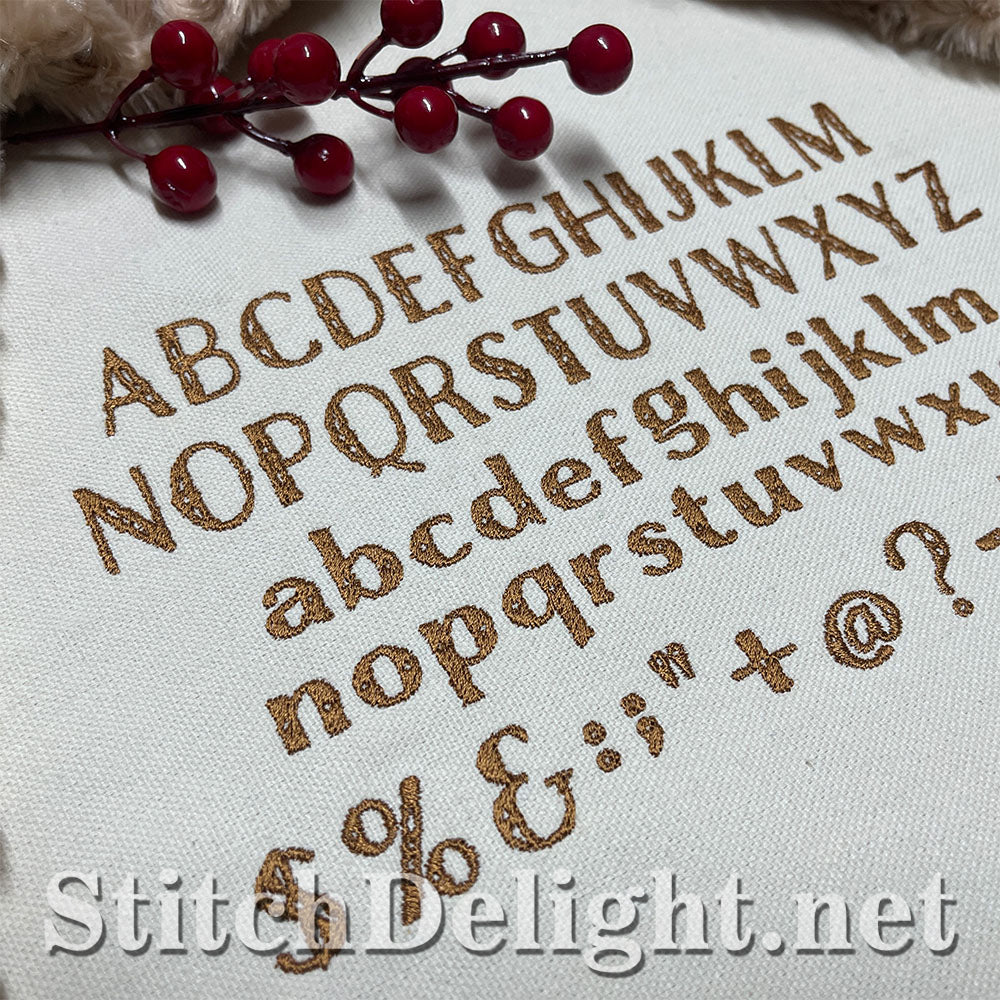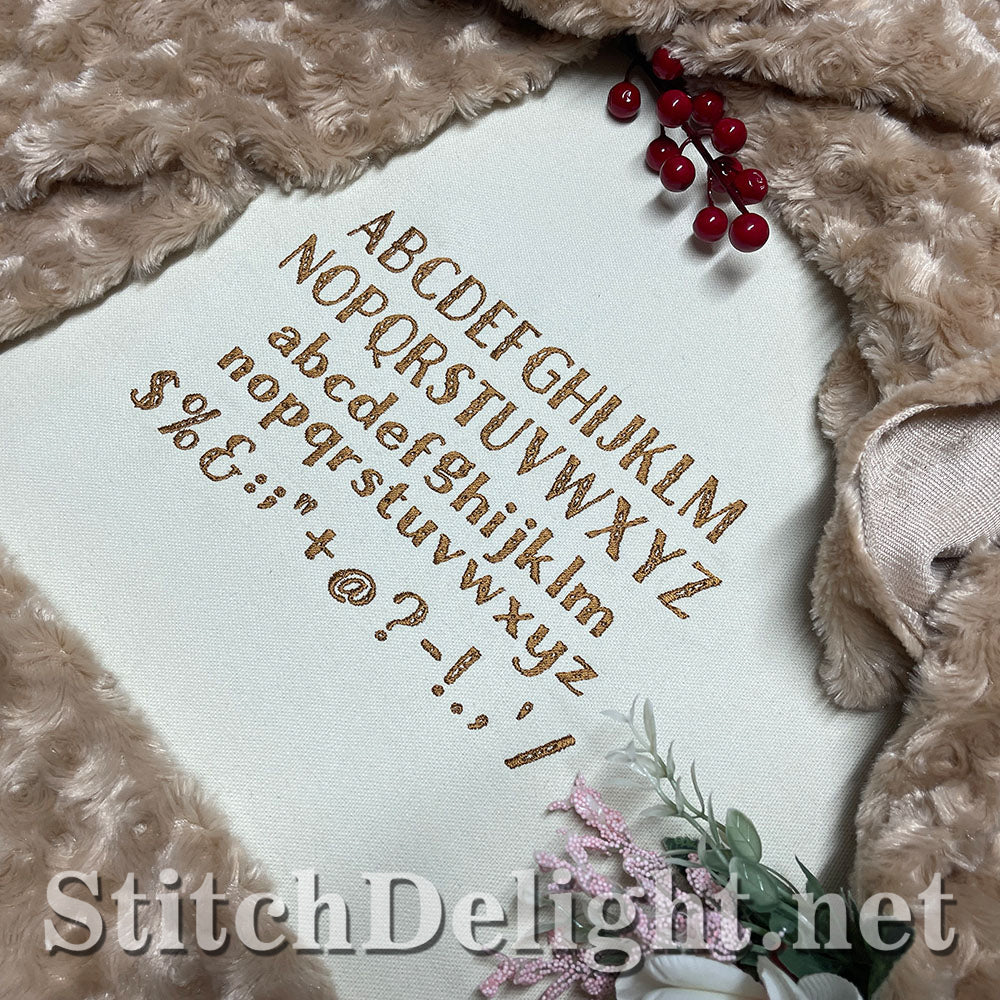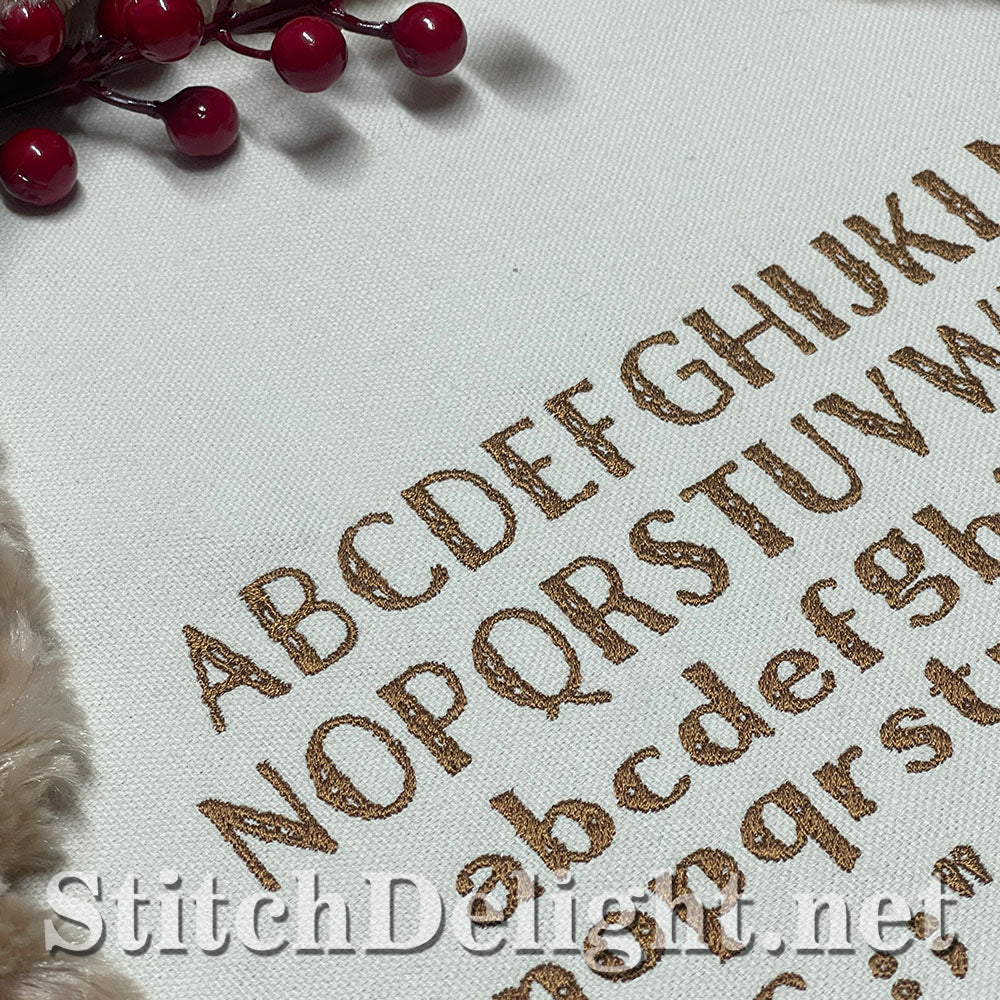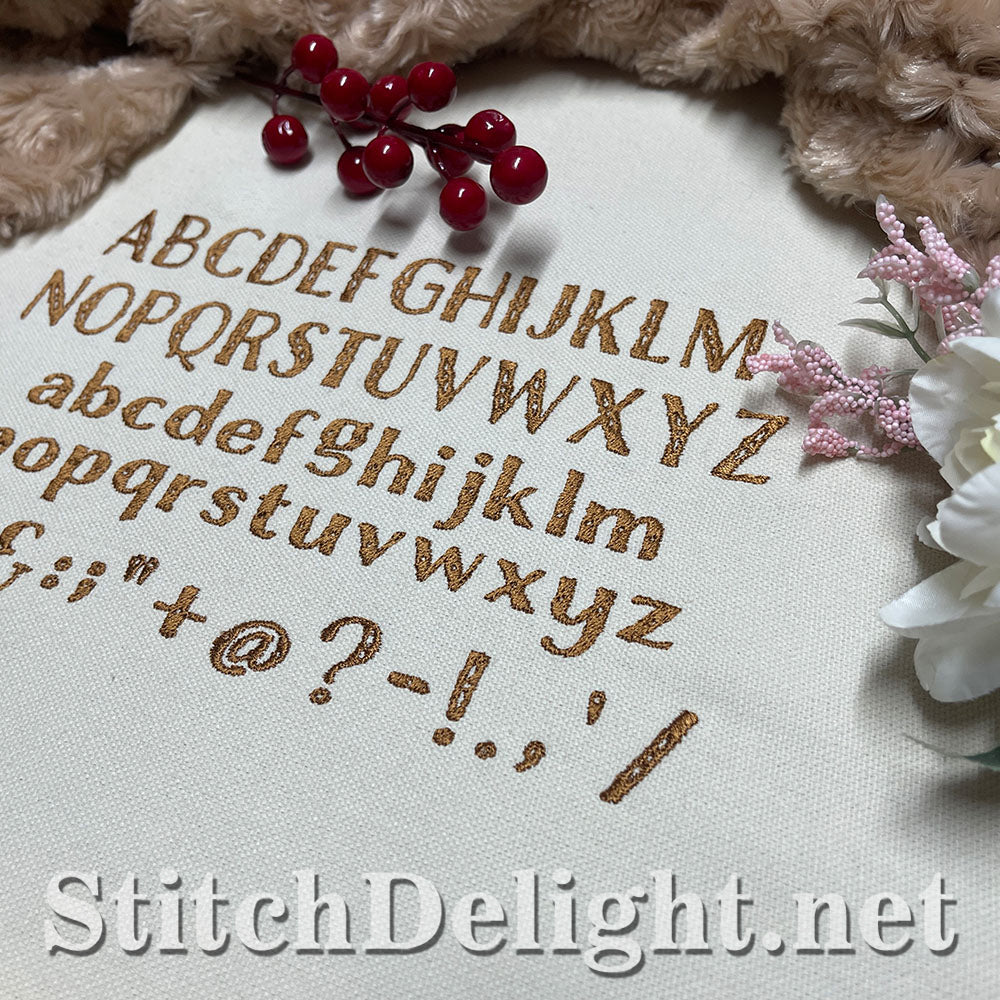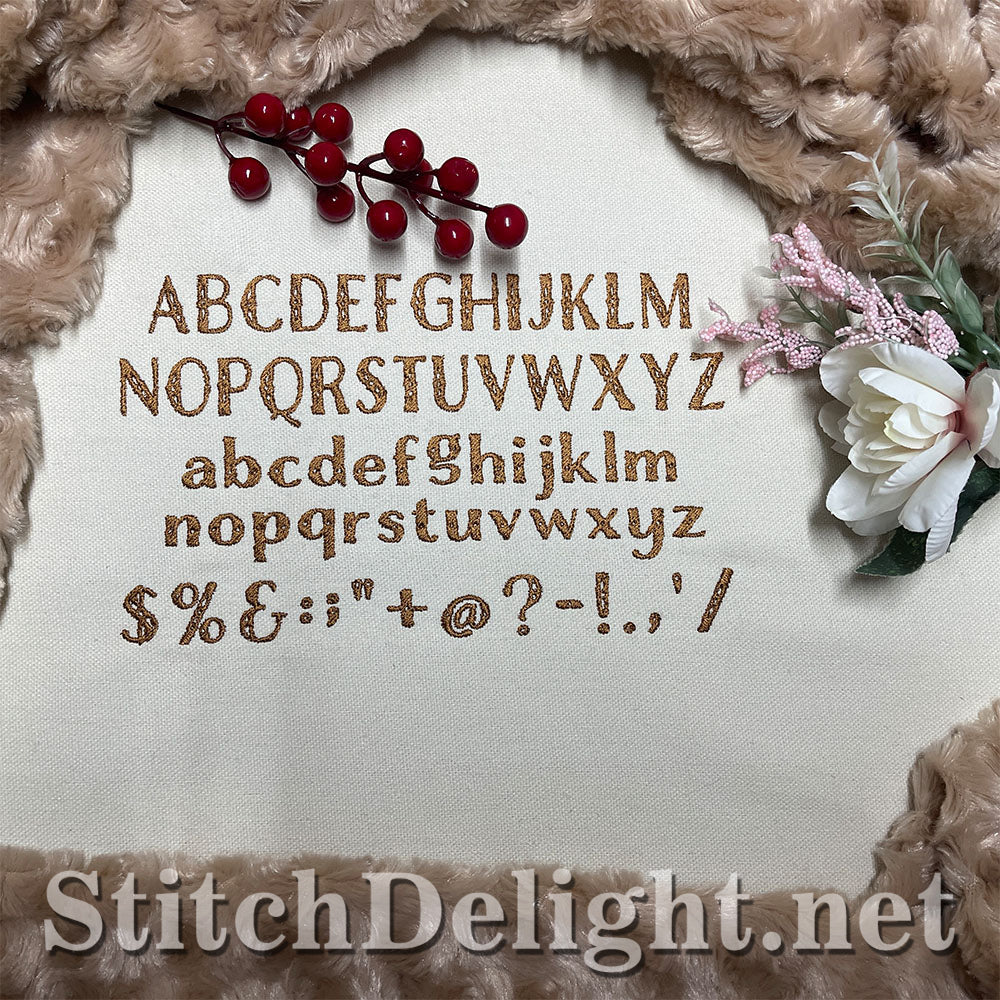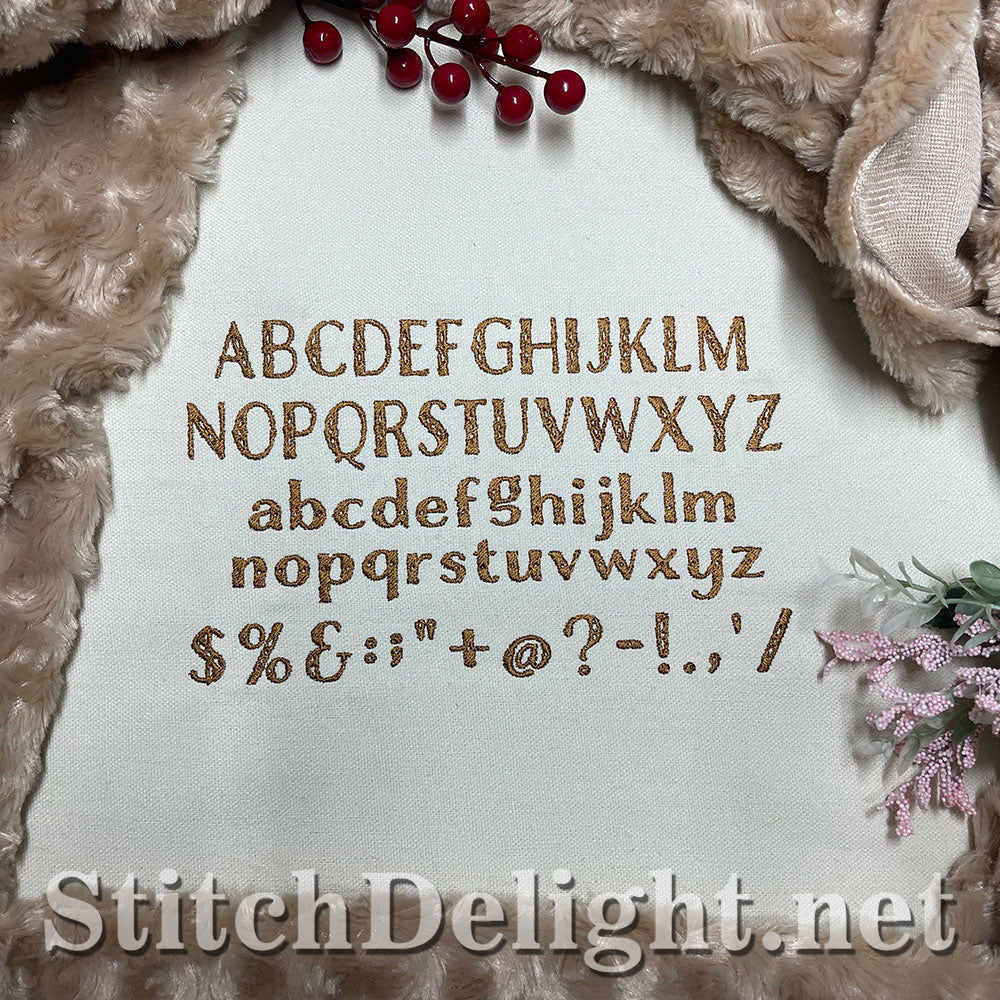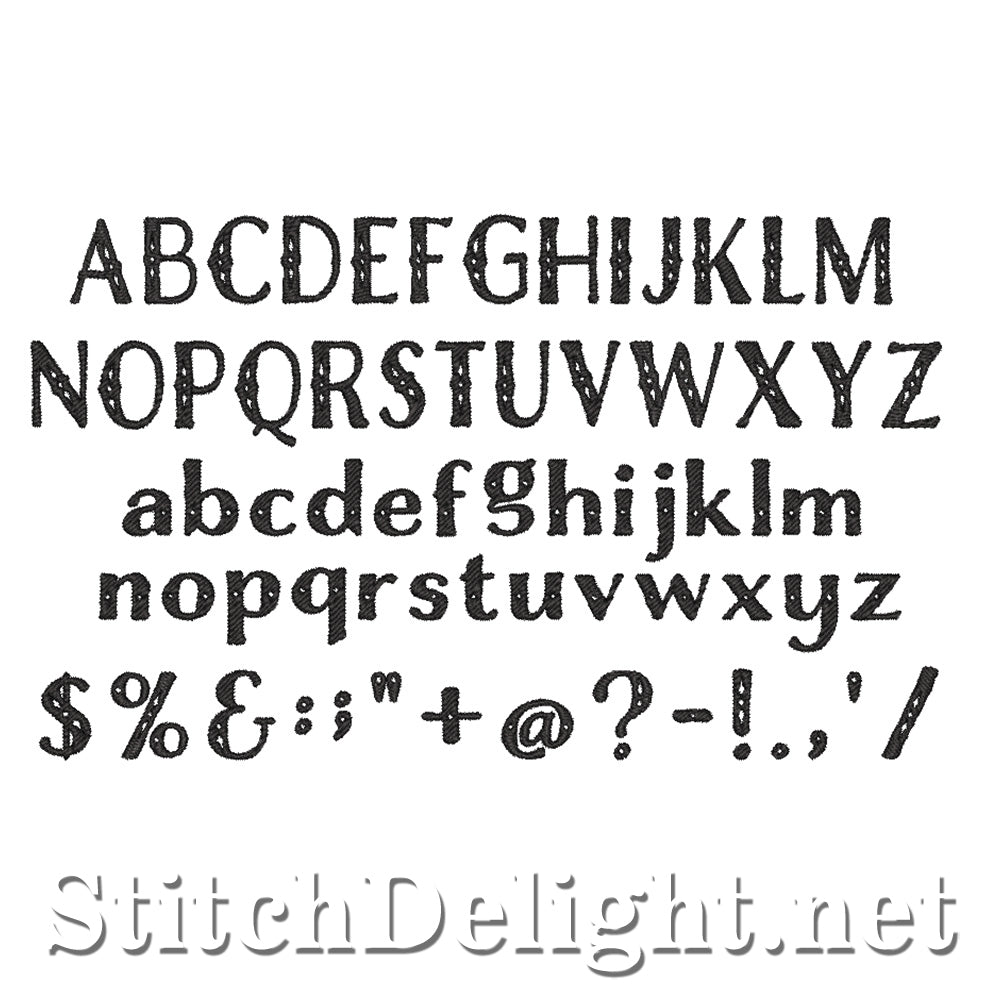
A stunning font that perfectly complements SDS3274 Dragon Font, inviting you to immerse in mythical realms and craft captivating themes inspired by the dragon age and knights. This font boasts an average height of 30mm / 1.2 inch